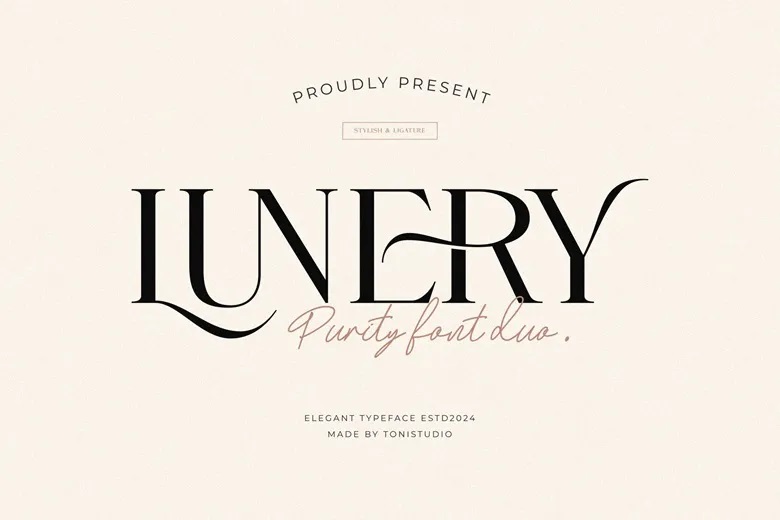
Lunery Purity Font Duo
Lunery Purity is a high end font duo that reflects style and refinement.. Modern style serif fonts contain ligatures and another character. Designed for poster designing, web designing, branding, illustration, badges and many more. Lunery Purity also contains a set of script fonts that will help you complete your special designs.